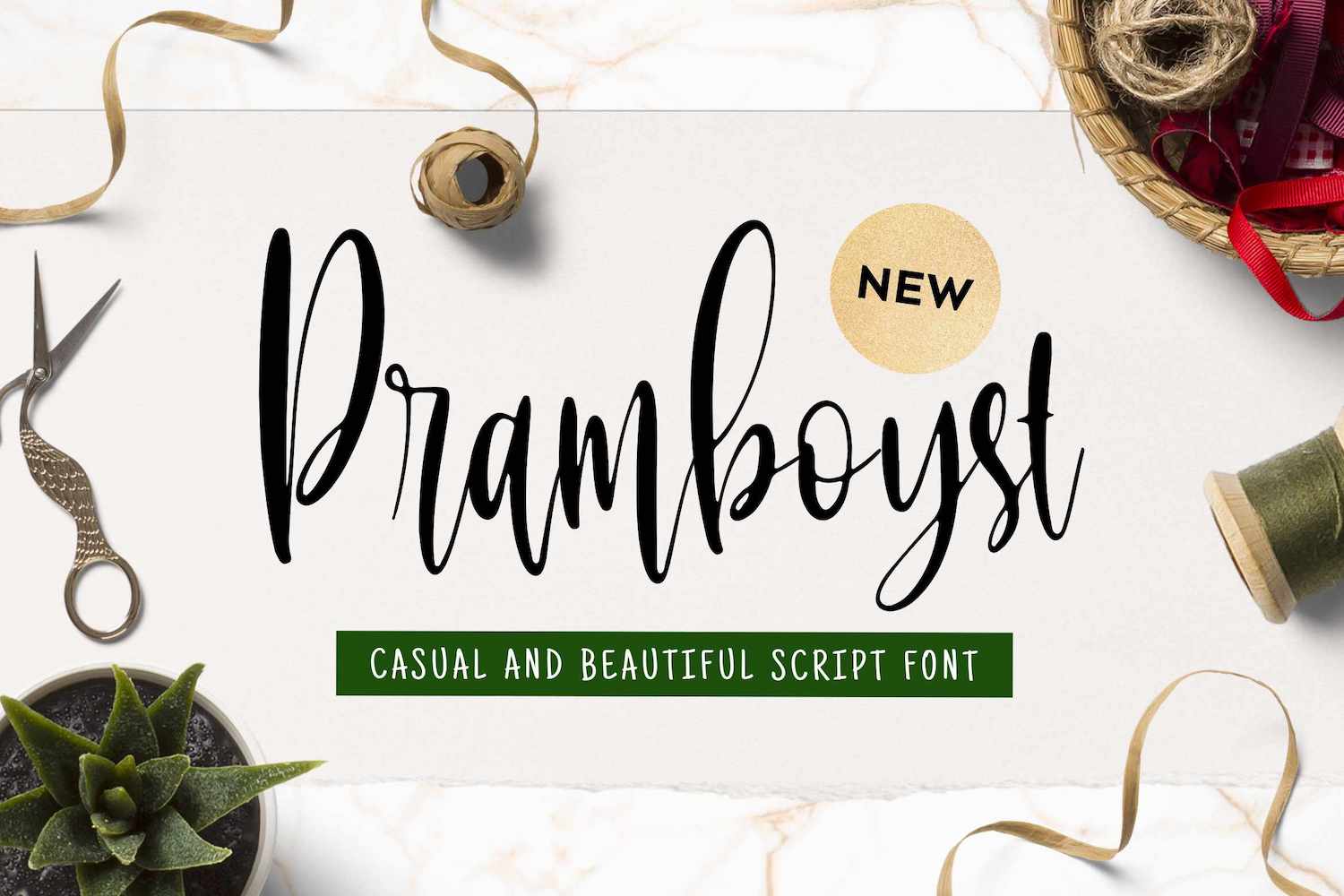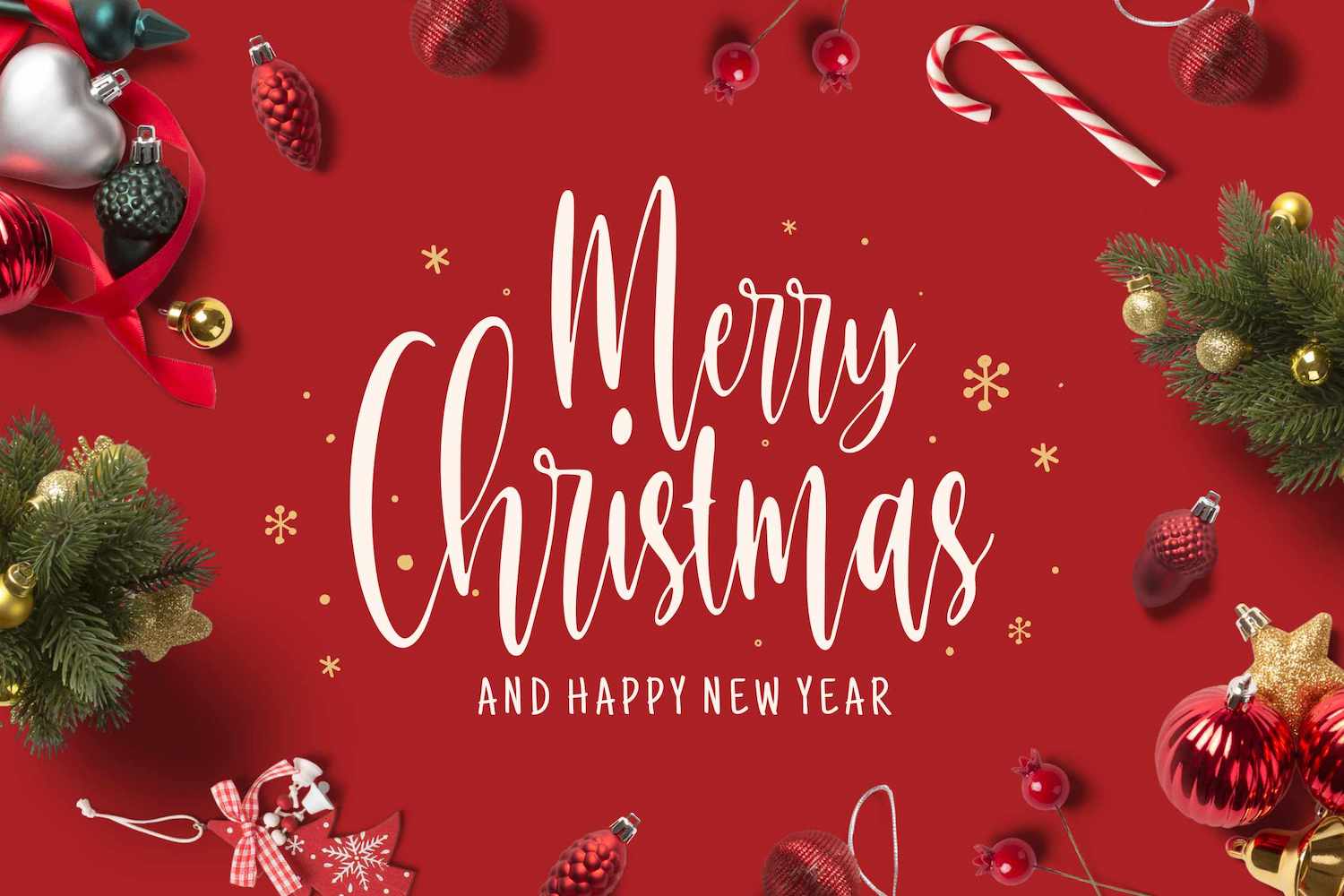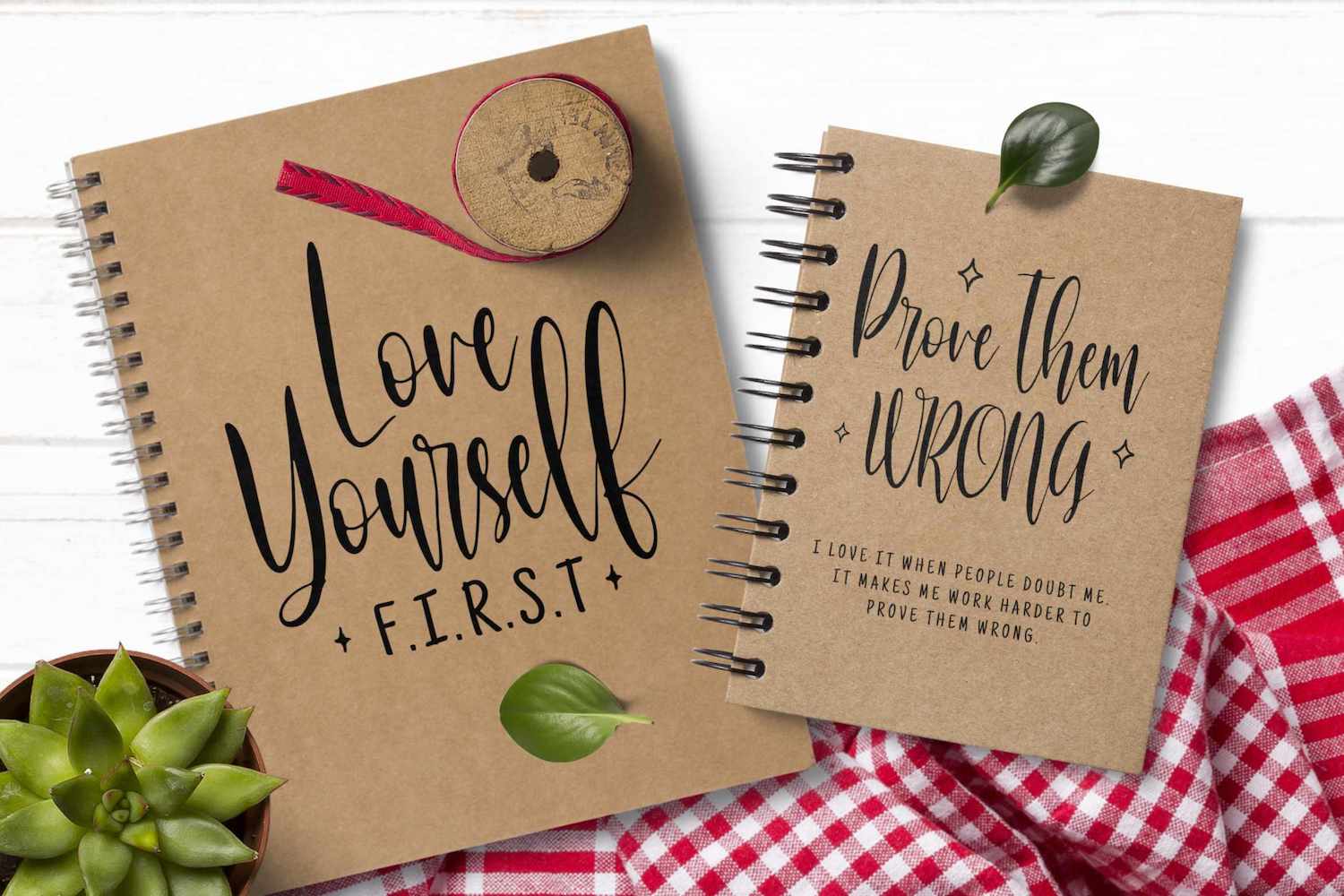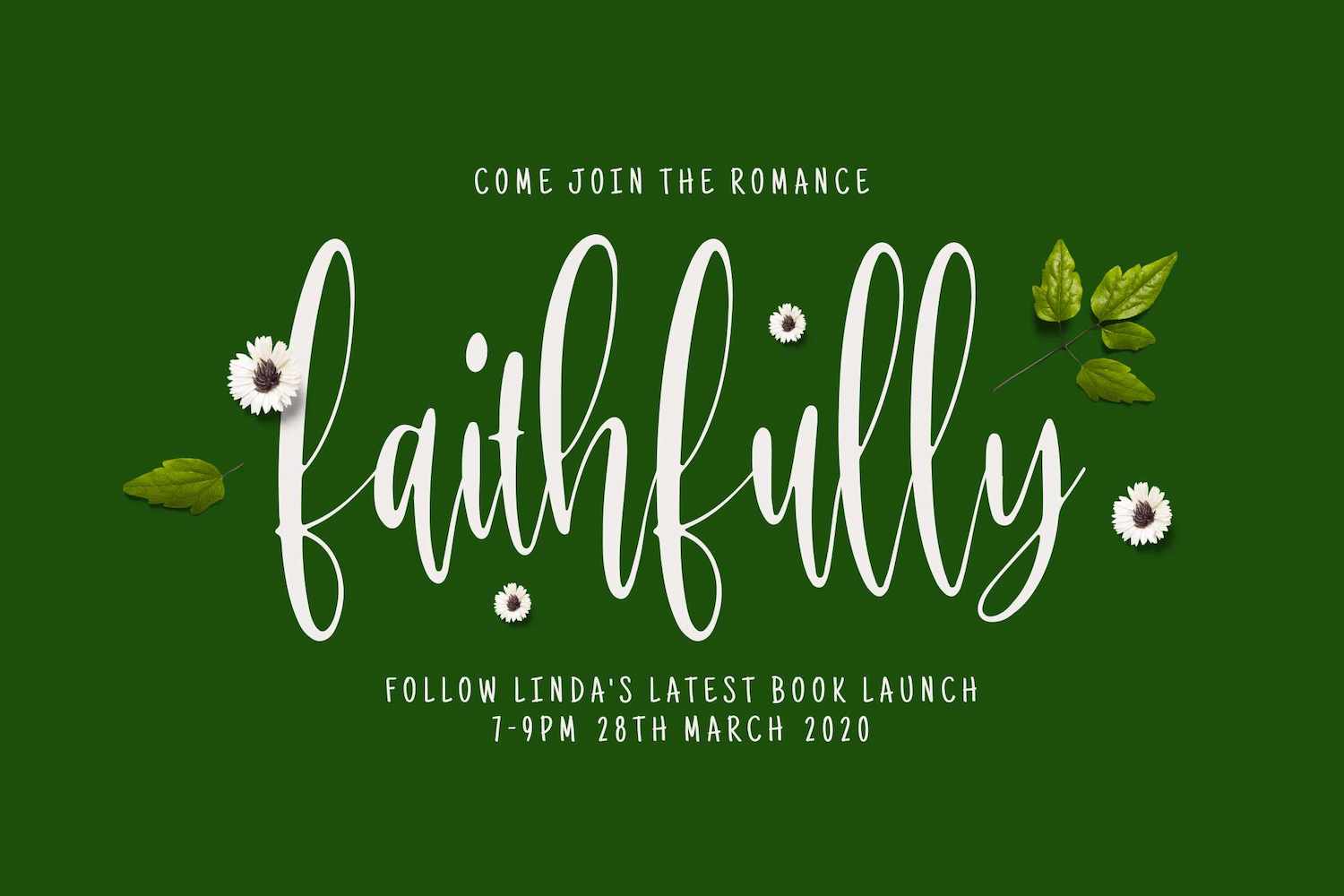
Pramboyst
Pramboyst is a casual and beautiful script font that radiates charm and personality in every stroke. With its tall letterforms, fluid motion, and hand-drawn aesthetic, Pramboyst is perfect for crafting heartfelt messages, elegant invitations, or stylish packaging. The modern brush script style gives it a lively energy while still maintaining readability, making it ideal for both digital and print projects.
Whether you’re designing seasonal greetings, quote posters, journals, or event branding, Pramboyst offers a friendly and personal touch. The font supports uppercase, lowercase, numbers, and essential punctuation, giving you all the flexibility you need to let your creativity flow freely. It’s a versatile choice for anyone looking to add a handwritten flair with professional polish.